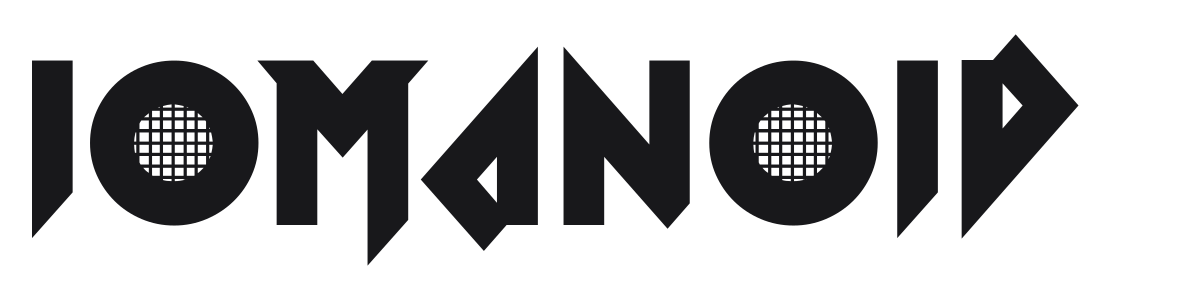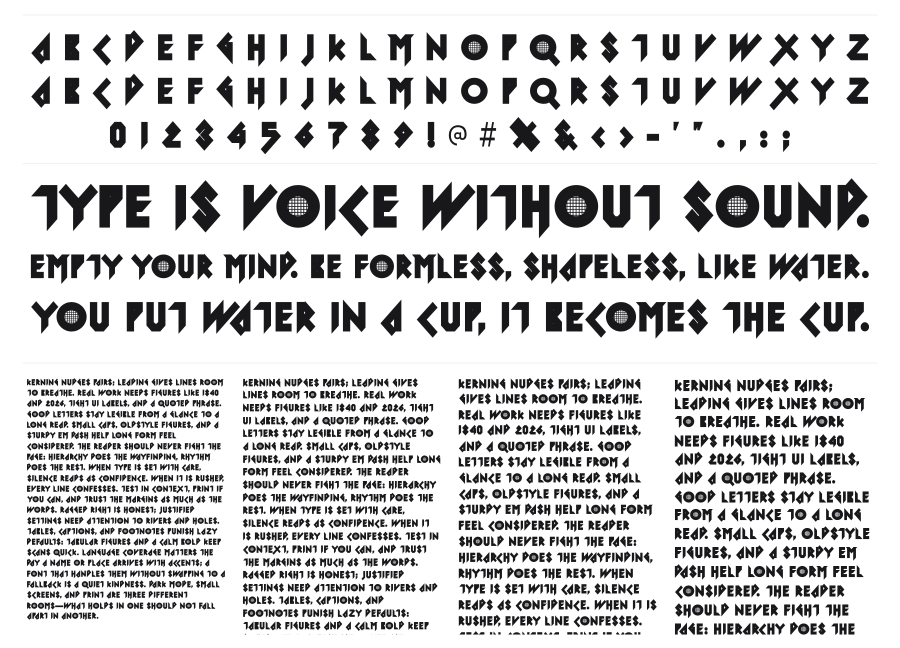
Iomanoid
Iomanoid is a heavy angular display font built from bold geometric cuts and sharp pointed terminals that channel classic heavy metal typography. Its thick monoweight strokes and aggressive diagonal slicing give every character an almost weaponized geometry. At home on album covers, posters, and anywhere a design needs raw, dramatic impact.